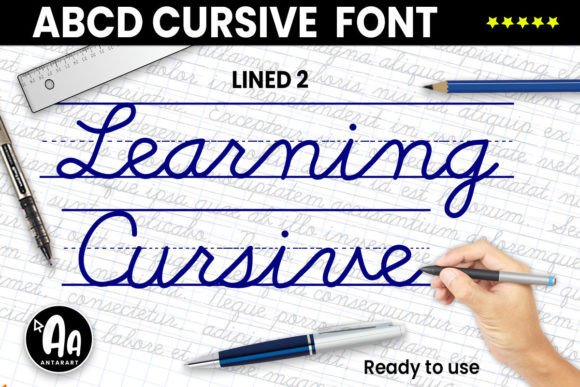
The Abcd Cursive Lined2 Font: A Game-Changer for Creative Learning
As a designer, I’ve had my fair share of projects that required a specific font to bring the vision to life. One of those projects was for a client who needed a custom worksheet for their child’s cursive handwriting practice. I scoured the internet for the perfect font, and that’s when I stumbled upon the Abcd Cursive Lined2 (Ruled) Font. It was love at first sight! ✨
What is Abcd Cursive Lined2 Font?
The Abcd Cursive Lined2 (Ruled) Font is a handwritten font designed to help create engaging and interactive worksheets for learning cursive handwriting. This font is perfect for designers, crafters, and creative hobbyists who want to create customized learning materials.
Here’s what I love about the Abcd Cursive Lined2 Font:
- ✨ Easy to read and write: The font is designed to be clear and legible, making it perfect for handwriting practice.
- ✅ Highly customizable: With OpenType features and glyphs, you can customize the font to fit your needs.
Small quirks or limitations:
- 🤔 Limited character set: The font may not have an extensive character set, which could limit its use for certain projects.
The Abcd Cursive Lined2 Font was designed with the intention of creating a fun and interactive way to learn cursive handwriting. The designer, likely an educator or a parent, wanted to create a font that would make learning enjoyable and engaging. The result is a font that’s both functional and aesthetically pleasing.